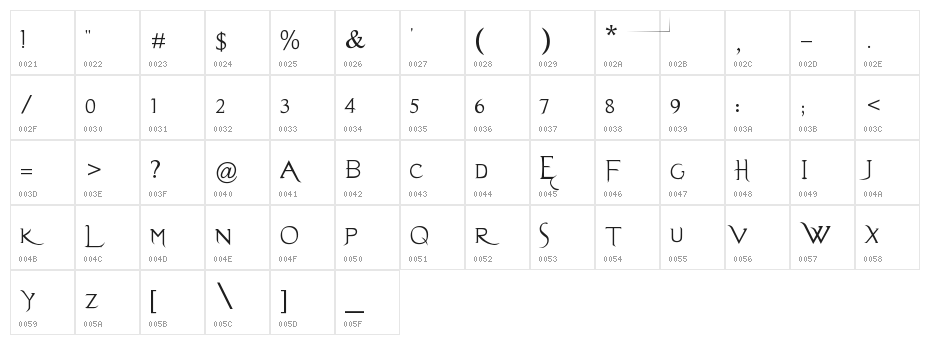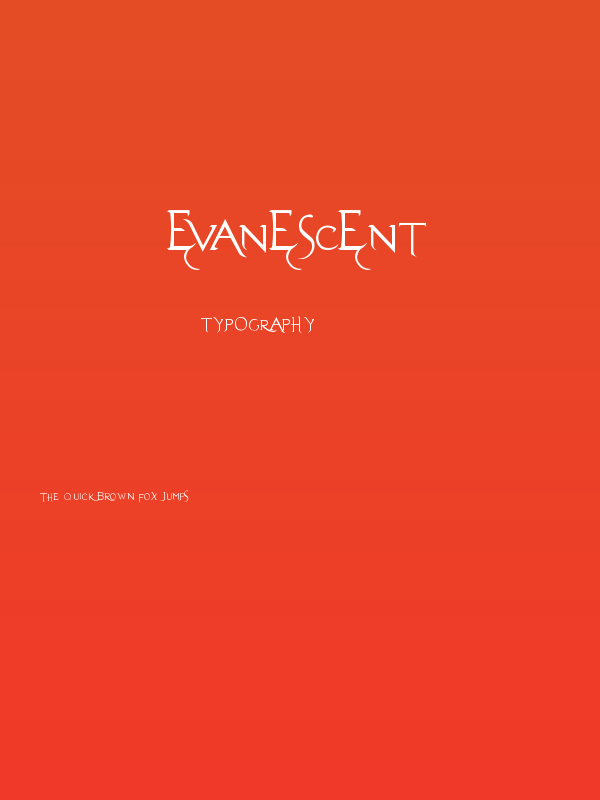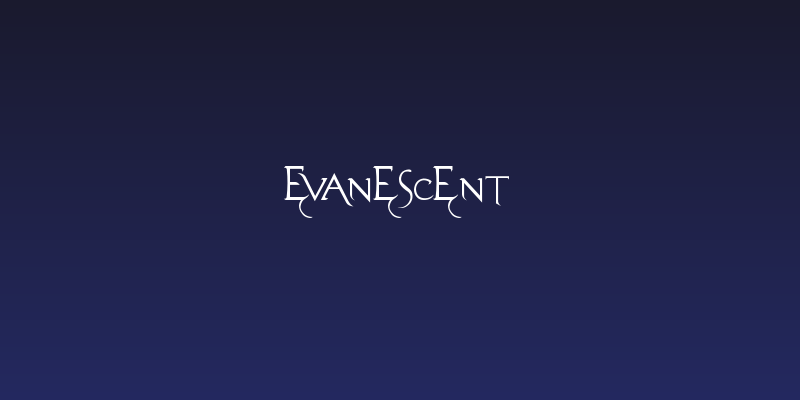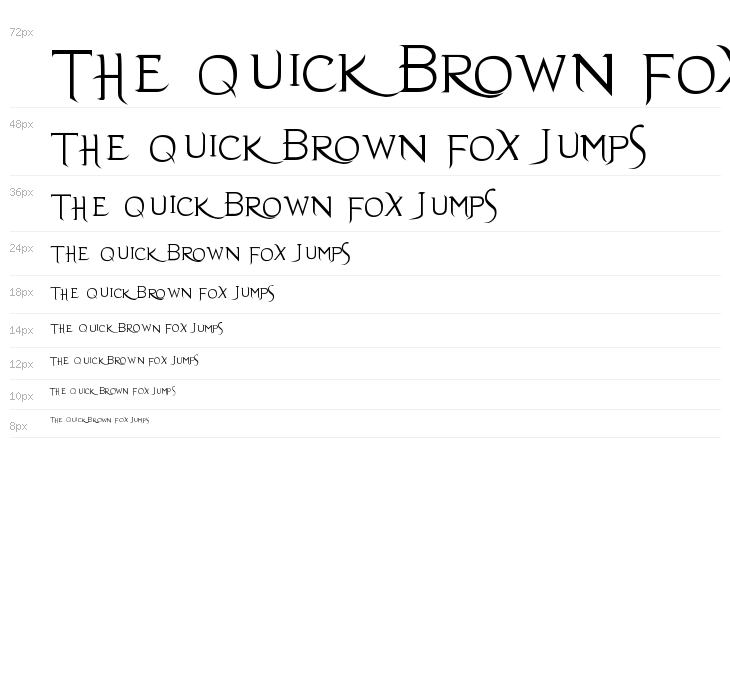
Evanescent Font
Evanescent Description
This font features a unique blend of elegance and mystique, characterized by its sharp, angular serifs and flowing curves. The uppercase letters exhibit a dramatic flair with extended strokes and pointed terminals, creating a sense of movement and sophistication. The lowercase letters maintain a consistent style, with a slightly more subdued appearance, yet still retaining the font's distinctive sharpness. The numerals are clear and legible, with a classic touch that complements the overall design. Special characters are crafted with the same attention to detail, ensuring consistency throughout the typeface. This font's intricate design makes it suitable for projects that require a touch of elegance and drama.